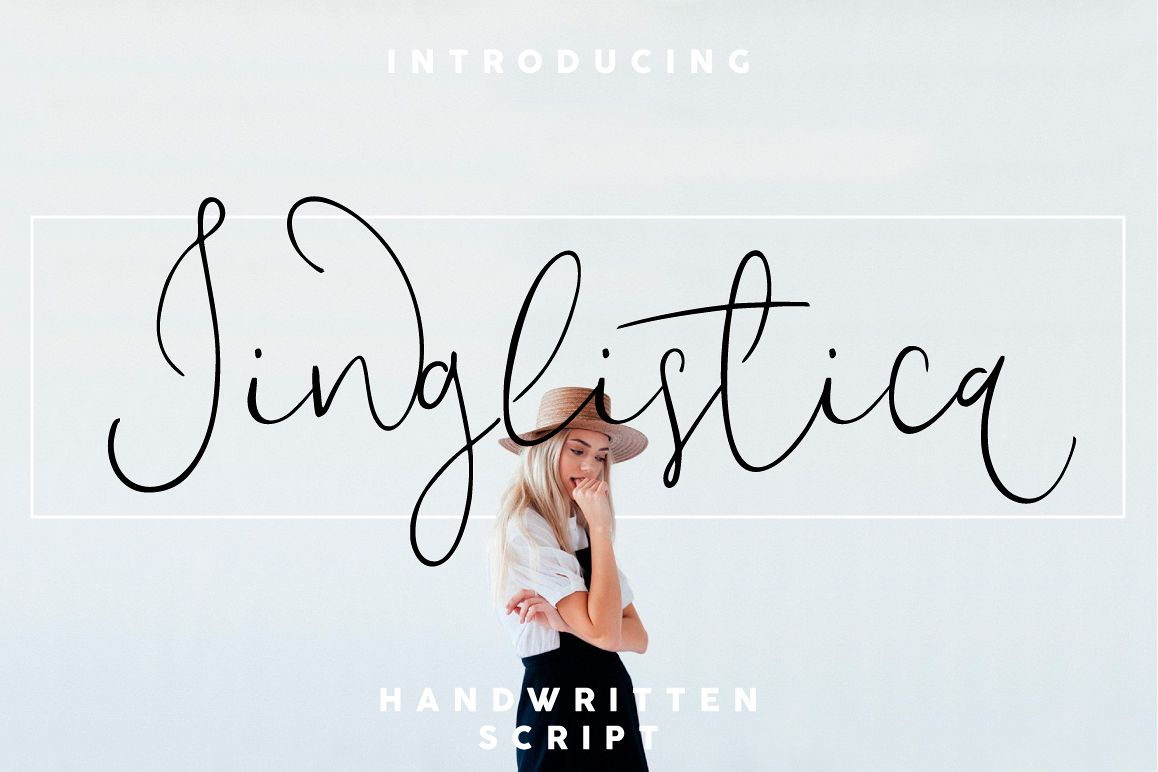
Jinglistica
Jinglistica Script
It's handwritten script. This font is ideal for branding and decorate your any project.
This font are perfect for wedding invitation or your blog. Also with their help, you can create a logo or beautiful frame for your home. Or just use for your small business, book covers, stationery, marketing, magazines and more.